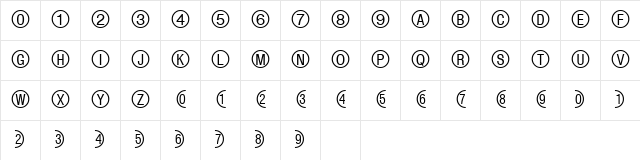
Circle Frame MT Regular
Design Context for Circle Frame MT
Circle Frame MT is a composed and adaptable typeface that performs quietly and consistently across a wide range of design contexts.